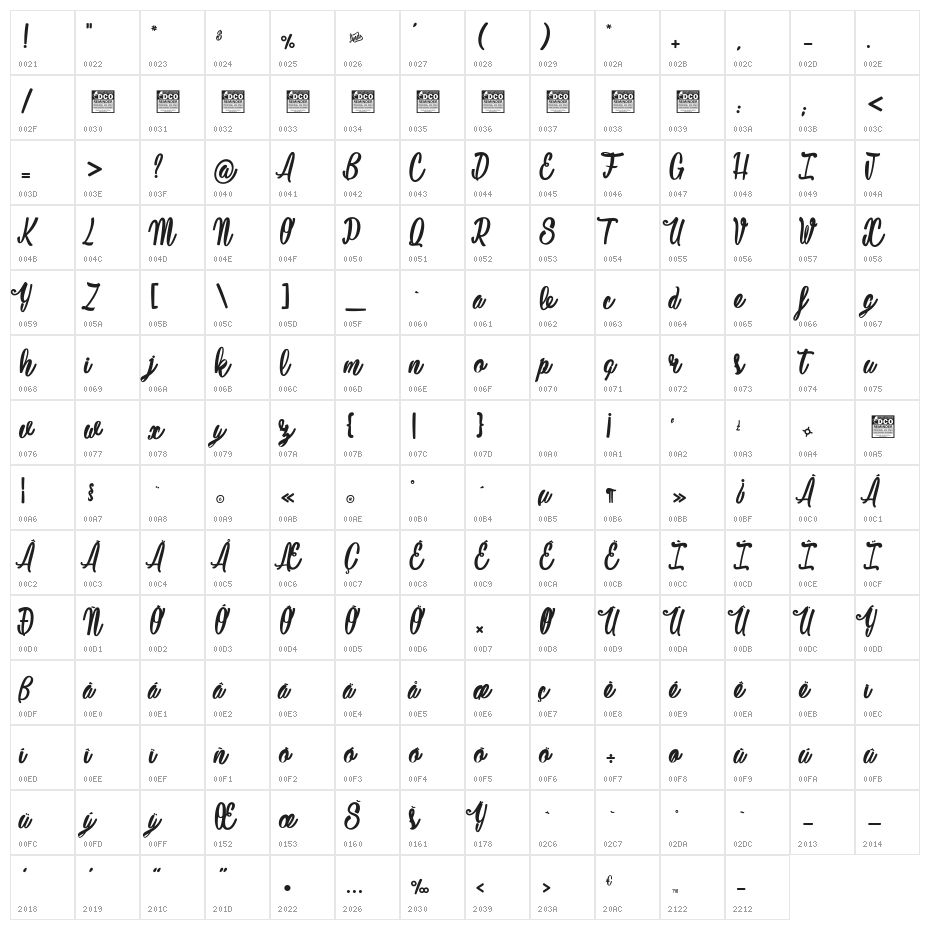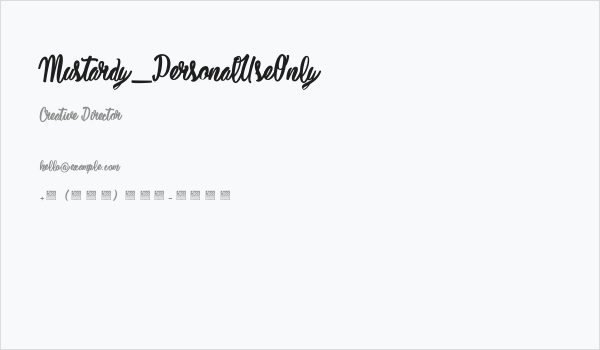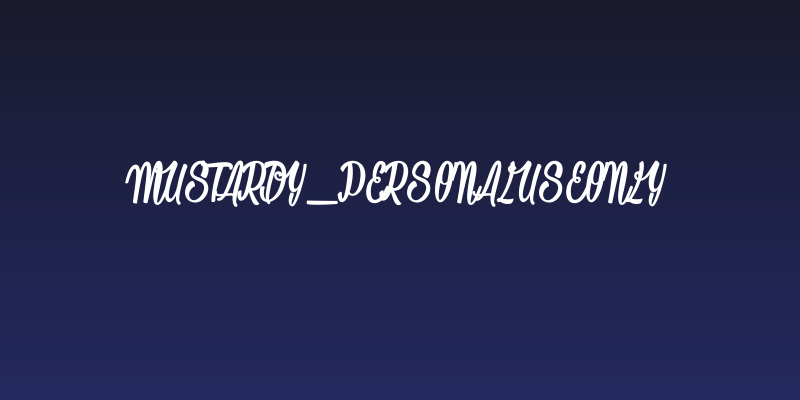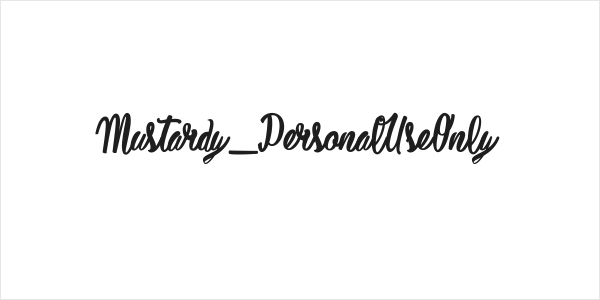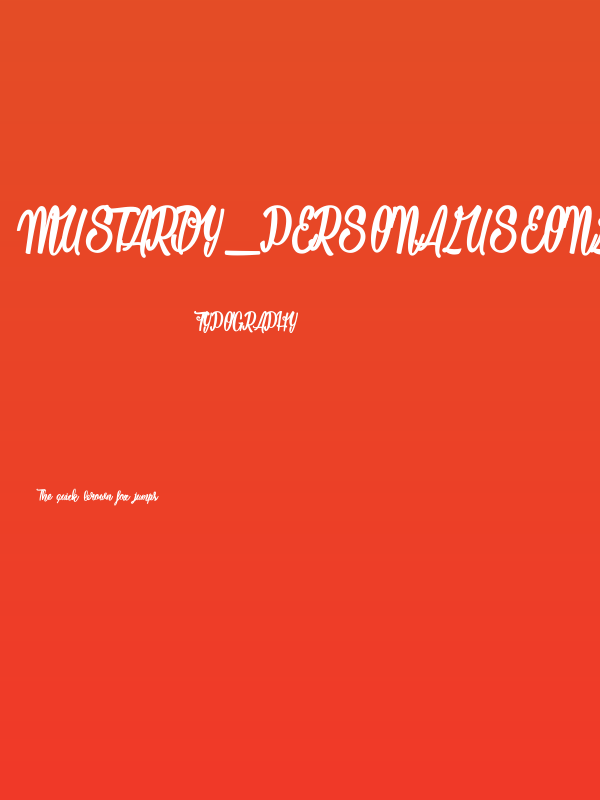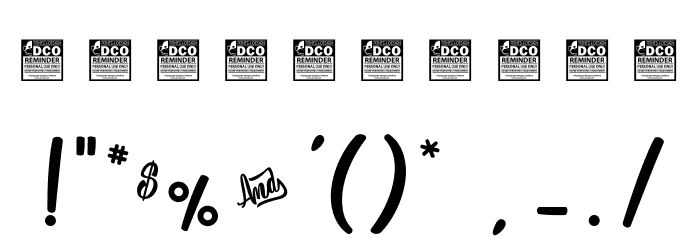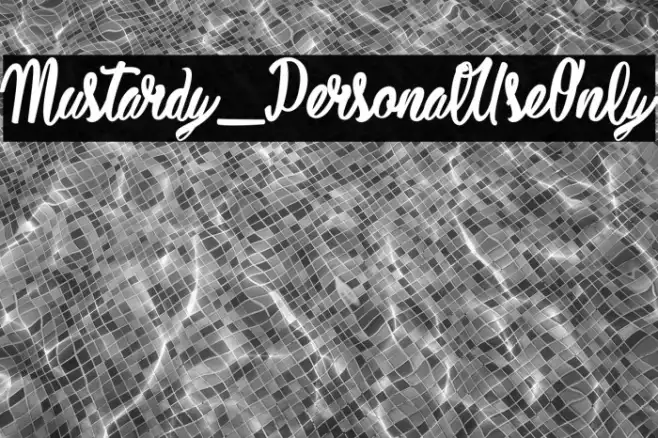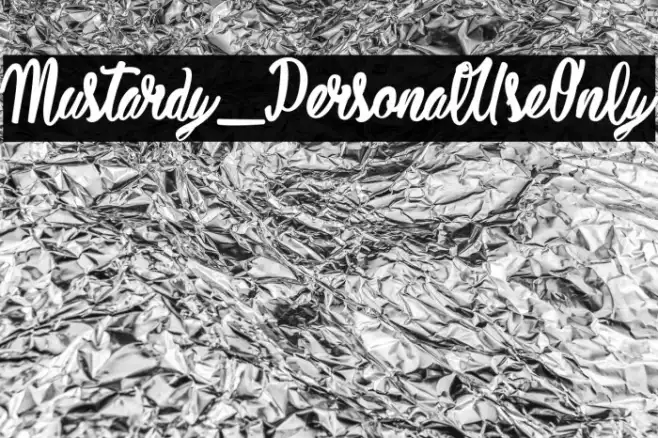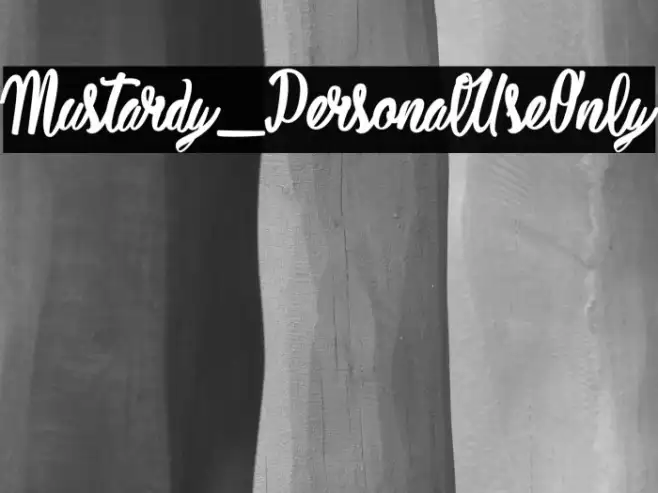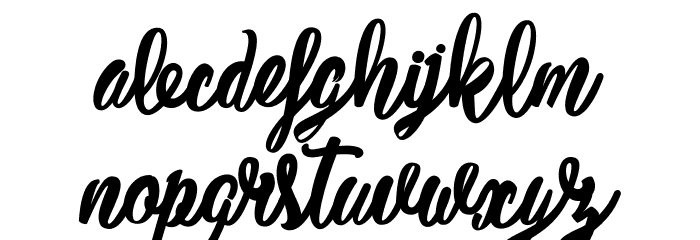
Mustardy_PersonalUseOnly Font
Mustardy_PersonalUseOnly Description
This font features a bold and expressive script style, characterized by its flowing, cursive letterforms. The uppercase letters are tall and slightly slanted, with exaggerated loops and swashes that give a sense of movement and elegance. The lowercase letters maintain a consistent flow, with rounded edges and smooth connections between characters. The font includes a variety of special characters, maintaining the same bold and dynamic style. Its overall appearance is playful yet sophisticated, making it suitable for creative and artistic projects.
| Proposed Projects | Ideal for branding, invitations, greeting cards, and artistic projects that require a touch of elegance and creativity. |